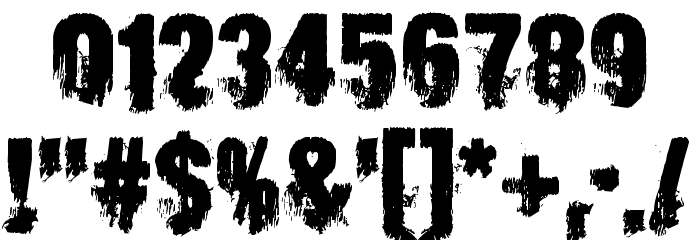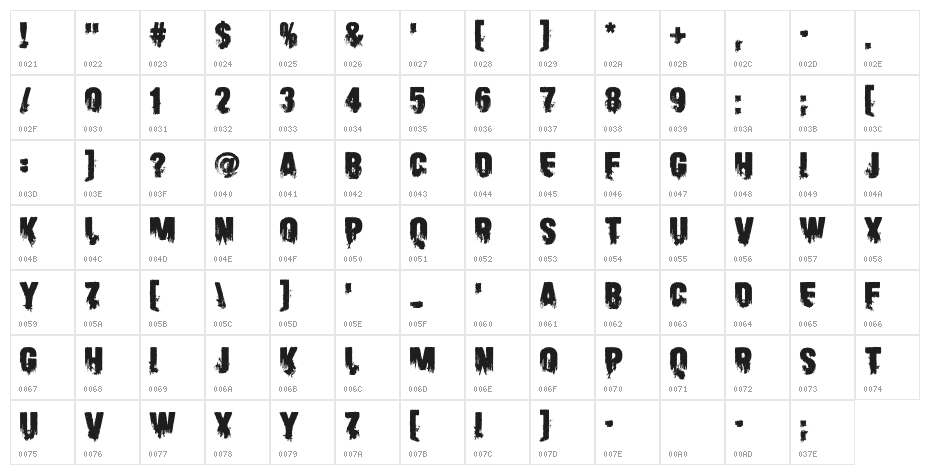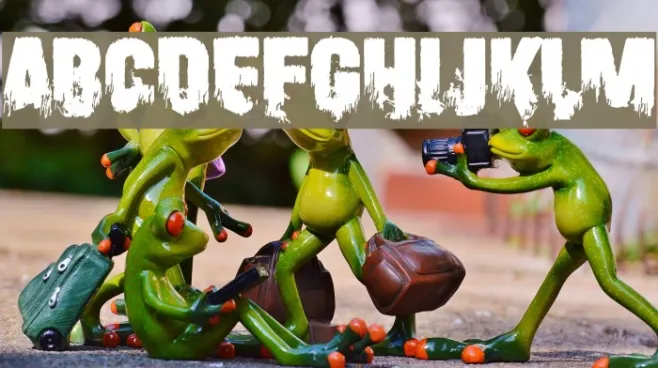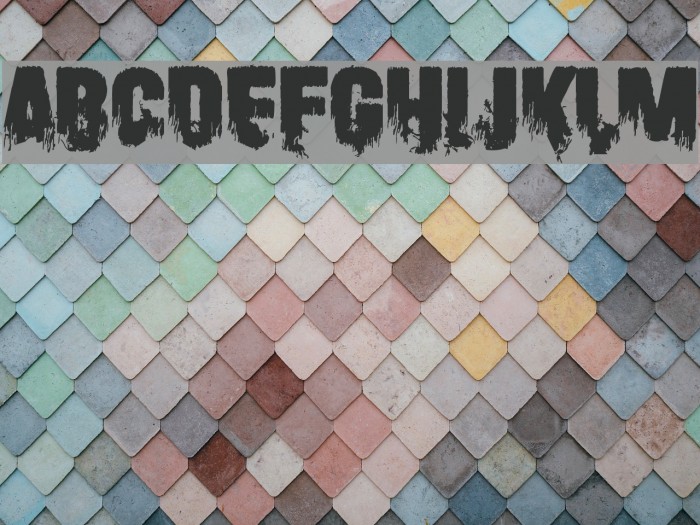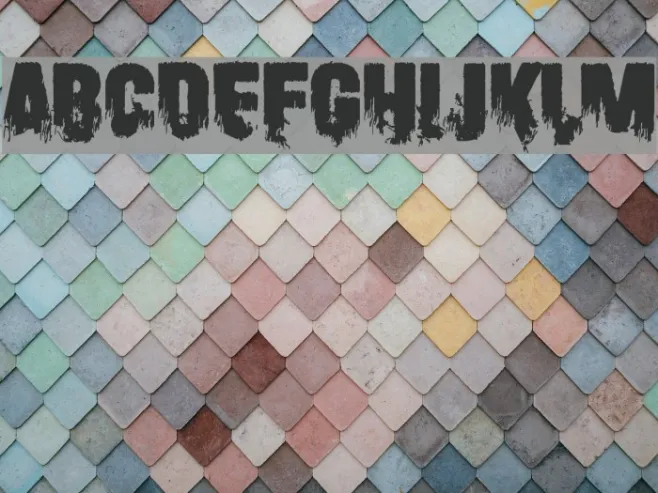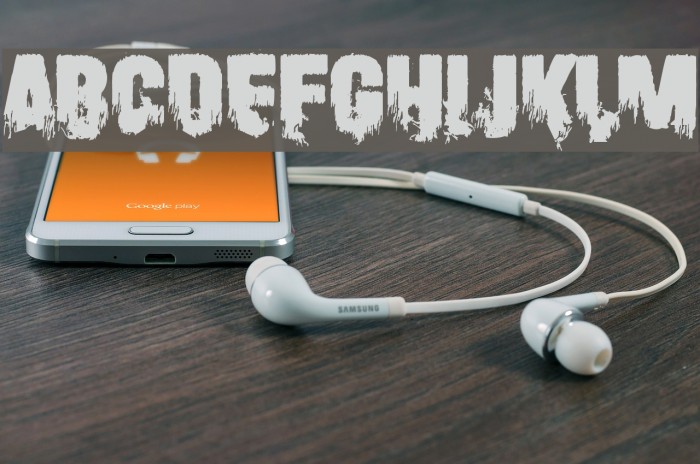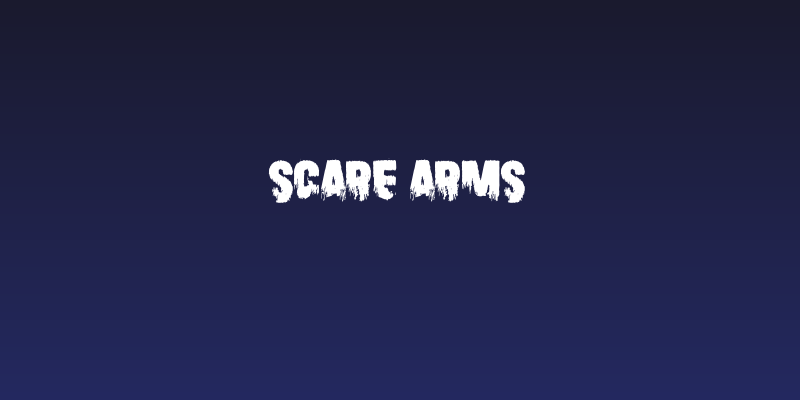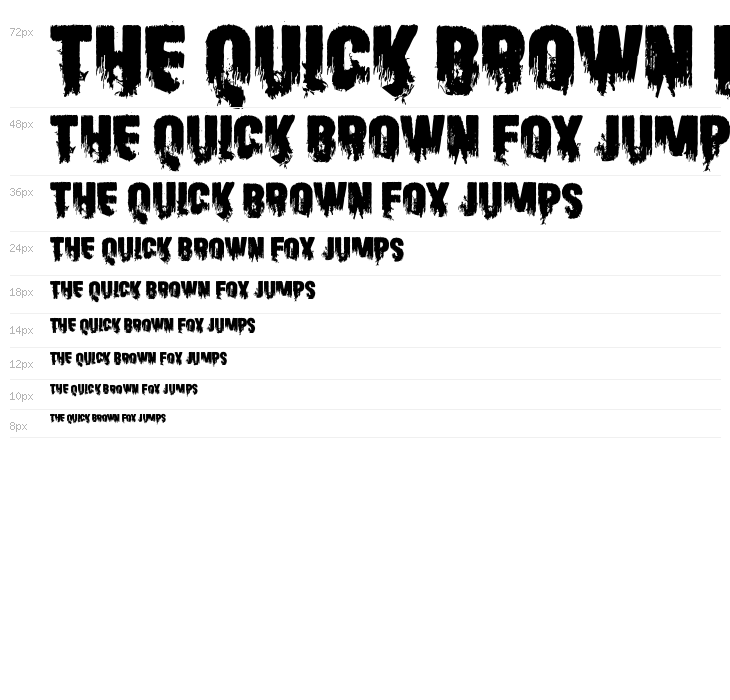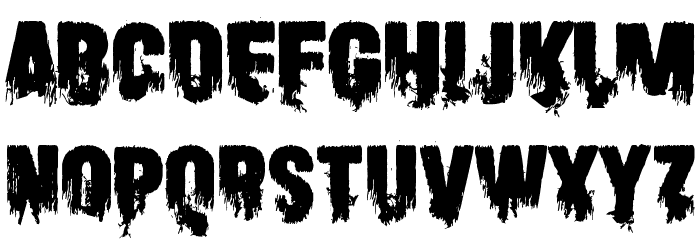
Scare Arms Font
Scare Arms Description
This font features a bold, distressed style with a grunge effect that gives each character a rugged, worn appearance. The edges are irregular and jagged, creating a sense of movement and chaos. The uppercase letters are particularly striking, with their bold forms and rough textures. The numbers and special characters maintain this distressed aesthetic, making them suitable for designs that require a dramatic and edgy look. The font's unique style is reminiscent of horror or thriller themes, making it perfect for projects that aim to evoke a sense of unease or excitement.
| Proposed Projects | Ideal for horror movie posters, Halloween event flyers, edgy album covers, and themed party invitations. |